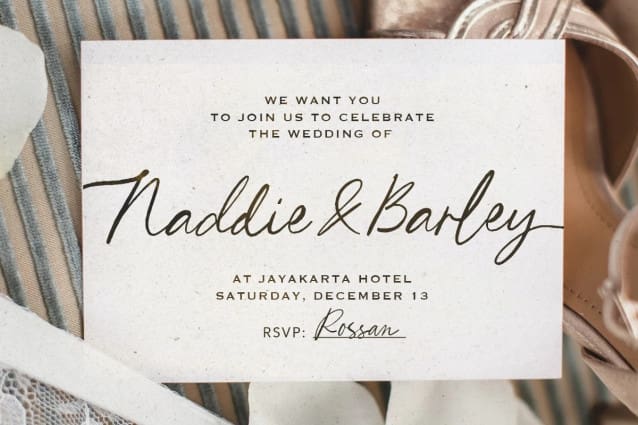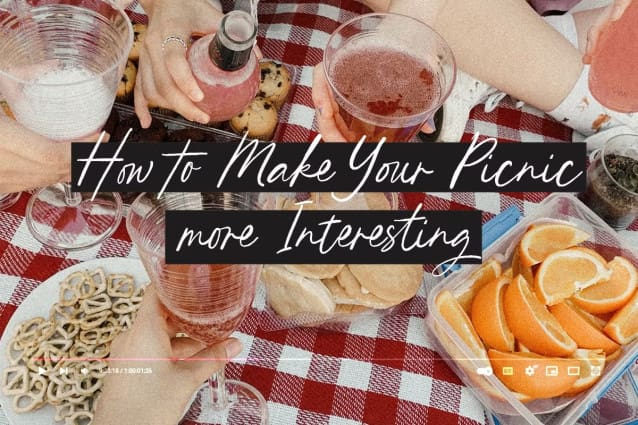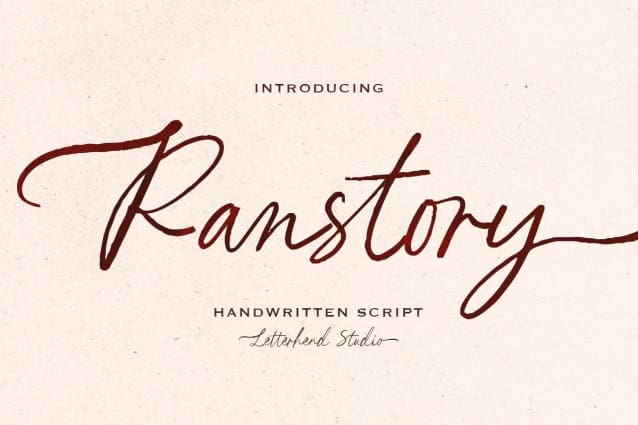
Ranstory Script Font
Ranstory Script Font, a sophisticated handwritten script font with a beautifully organic feel. Crafted for designers who seek elegance and personality, Ranstory Script is ideal for everything from wedding stationery to logo design, product packaging, and quotes.
Its delicate yet bold stokes make every design stand out, offering the perfect balance of classic and contemporary style. Add a personal, artistic flair to your projects with Ranstory!